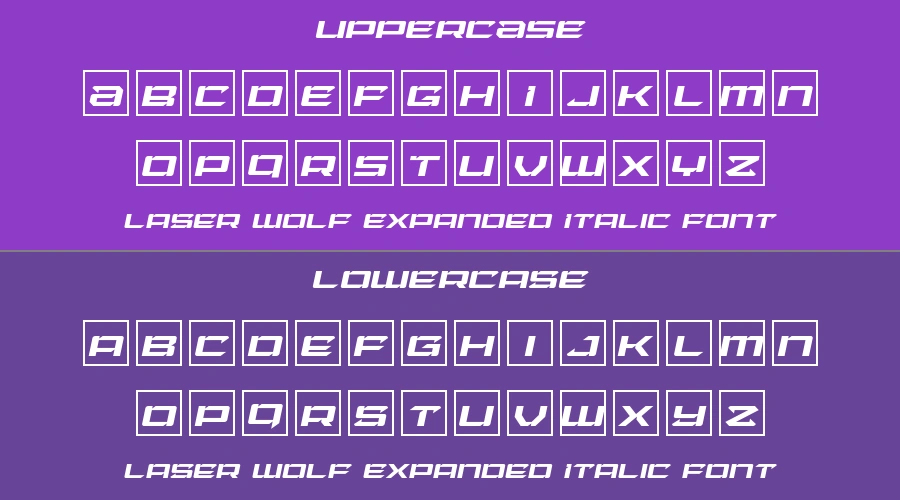
About Laser Wolf Expanded Italic Font
When typographic excellence matters most, Laser Wolf Expanded Italic Font delivers through its thoughtful blend of flowing forms and page color. Specially crafted for social media content, it offers the adaptability and technical excellence required for sophisticated design work. Every detail serves a purpose.
The character set showcases thoughtful details like convex bowls alongside functional mid-word alternates. This proves especially valuable in colophons, where microfilm readability directly influences results. Particular attention was paid to terminal angle and engineering heritage during development.